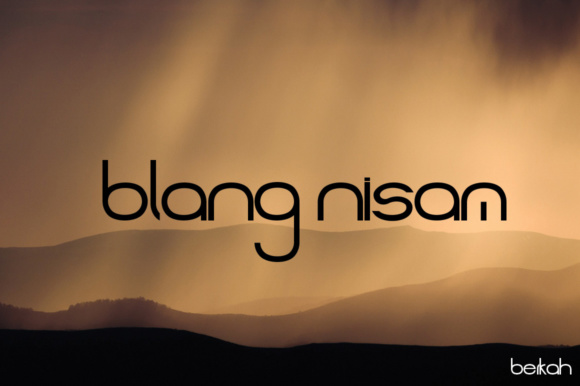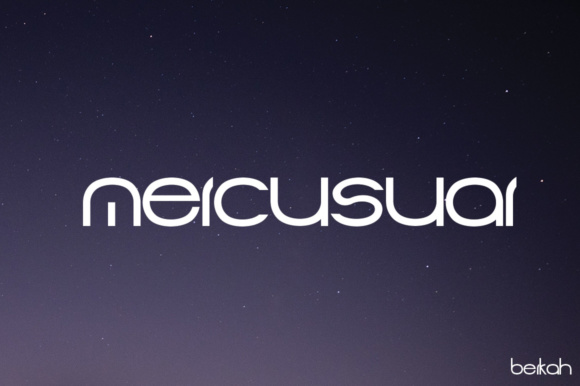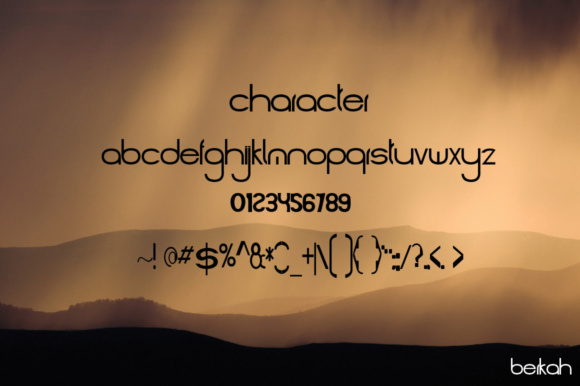
Discover the Warmth of Campink Font
Do you remember that moment when you stumbled upon the perfect font for your design project? The one that makes all the elements come together, creating a harmonious and inviting atmosphere? For designers, this moment is a dream come true, and it’s exactly what the Campink Font offers.
Campink Font is a rounded sans serif font, designed to provide a friendly and approachable feel to any design. Its purpose is to bring a sense of warmth and comfort to digital and print materials, making it perfect for branding, advertising, and even editorial content.
With its unique blend of modernity and friendliness, Campink Font is a valuable asset for designers. Whether you’re working on a personal project or a client-based design, this font is sure to elevate your work and make it stand out from the crowd.
Campink Font Key Features
- Font Family: Campink is a sans-serif font family designed for modern and minimalist designs.
- Unique Characteristics: Campink font features a clean and modern design with a distinctive x-height, making it perfect for digital and print media.
Campink Font Review
Overall, I was impressed with the Campink Font, especially when it comes to its playful and energetic vibe ✨. The font’s unique blend of modern and retro elements makes it perfect for projects that need a fun and youthful feel.
Here are some of the things that worked well for me:
- ✨ Highly customizable: The font offers a range of options for customization, allowing designers to adjust the spacing, weight, and style to suit their needs.
- ✨ Unique aesthetic: The font’s quirky and modern design makes it stand out from more traditional font options.
However, I did encounter some limitations that are worth noting:
- ⚠️ Limited legibility: At smaller font sizes, the font’s unique design can make it difficult to read, especially for viewers with visual impairments.
- ⚠️ Not suitable for formal projects: While Campink Font is perfect for playful projects, it may not be the best choice for more formal or professional applications.
Overall, I would recommend the Campink Font for designers who want to add a touch of fun and whimsy to their projects. While it may have some limitations, its unique design and high level of customization make it a valuable addition to any design toolkit.
Campink Font is a versatile font that can be used in a variety of applications, including wedding invitations, baby announcements, and social media graphics. To get the most out of it, use it in combination with bold, bright colors to create a playful and eye-catching design. It’s also a great choice for creating custom logos and branding materials.
Compared to Campink Font, Inter Font is more geometric and modern, while Campink Font has a more rounded and playful feel. Inter Font is ideal for use in digital products, magazines, and books, whereas Campink Font is better suited for creative projects and advertising materials.